34 Awesome Display Fonts (Plus the Best Graffiti Font for 2026)
Typography trends are shifting faster than ever in 2026, and finding the right display typography can make or break your design projects. Whether you are working on a gritty urban clothing line, a vibrant music poster, or edgy branding, injecting some street art style is a proven way to grab attention. In this curated list of 34 standout display typefaces, we are sharing the absolute best options available today. If you have been searching high and low for an authentic Graffiti Font to give your artwork that hand-tagged, rebellious look, you are in the right place. Let’s jump into these top-tier urban typefaces and lettering styles that will bring your next creative piece to life.
1. Edward Graffiti Font
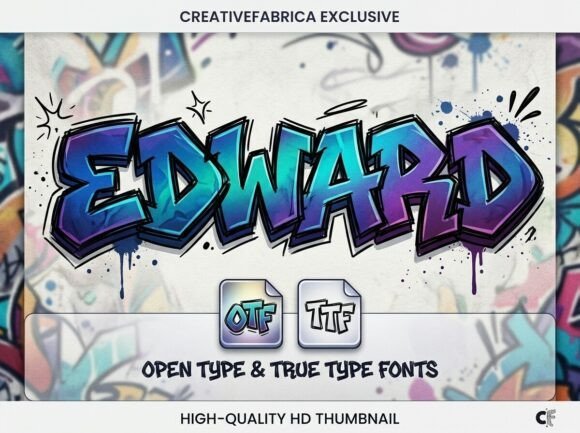
Inject an unapologetic wave of raw energy into your next digital canvas with the Edward Graffiti Font, a bold, hand-drawn typeface that masterfully captures the essence of modern street art typography. Designed with a gritty, blocky aesthetic and prominent, thick outlines, this striking lettering style instantly evokes the authentic spirit of underground culture and inner-city murals. If you are looking to emulate the unmistakable look of spray paint tags and urban lettering, Edward delivers a heavy-hitting visual impact that refuses to be ignored.
Because of its loud, rebellious personality, this display graffiti font is an absolute standout choice for highly expressive projects like streetwear brand logos, underground hip-hop event posters, and aggressive gaming graphics. By integrating the Edward typeface into your design arsenal, you are equipping your workflow with an authentically modern aesthetic that bridges the gap between classic wall tagging and polished graphic design. Whether you are producing eye-catching apparel or designing edgy digital content, this font guarantees your project will maintain a fierce, street-ready attitude.
2. Rhinos Pero Graffiti Font
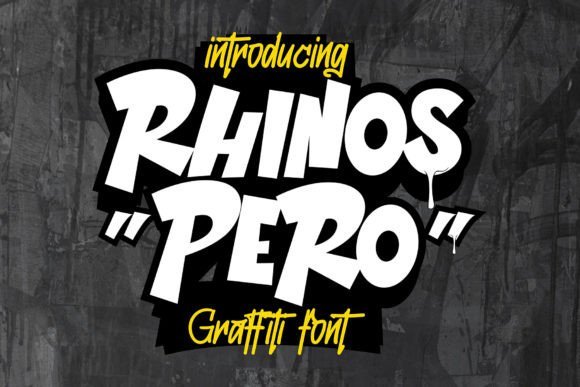
Stepping away from the typically aggressive and highly structured styles of traditional street art typography, the Rhinos Pero Graffiti Font introduces a refreshingly quirky and delightfully playful aesthetic to the urban design space. This highly unconventional typeface embodies eccentric and unique letterforms that boldly deviate from standard typographic norms, injecting a sense of whimsy into the classic tagging aesthetic. By featuring irregular shapes and bouncy, imaginative characters, Rhinos Pero proves that a graffiti font can deliver a distinct, offbeat appearance while still paying homage to authentic street-level lettering and modern mural styles.
With its remarkably fun and approachable attributes, the Rhinos Pero Graffiti Font is the perfect typographic solution for creative projects aiming to convey a lighthearted yet distinctly urban visual impression. Designers will find this whimsical typeface incredibly versatile for youth-oriented streetwear brands, eccentric festival flyers, playful product packaging, and engaging social media campaigns. By leveraging this graffiti-inspired typographic style, you can effortlessly blend the raw, organic feel of street art with a fun, accessible vibe that captivates a broad modern audience.
3. Grime Slime Graffiti Font
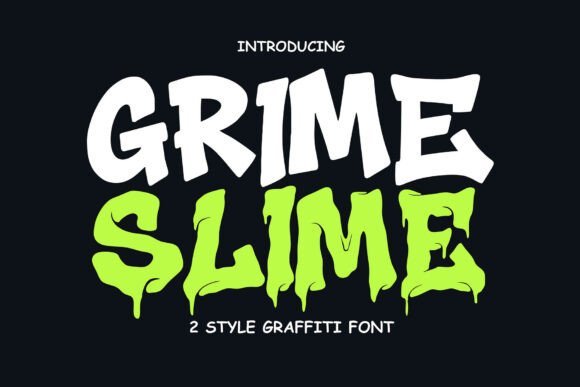
Unleash the untamed spirit of the urban jungle with the Grime Slime Graffiti Font, a rugged, melting typeface created by Cikareotype that expertly channels the gritty, macabre energy of underground street culture. Inspired directly by the visceral reality of city alleyways, this unique display typeface features a dripping, oozing aesthetic where every single character mimics toxic slime trails and wet spray paint. It flaunts its intentional letterform deformities with absolute pride, utilizing swaying edges and organic morphing to create a wild, yet surprisingly readable spectacle. For designers seeking a drip effect graffiti font that packs a fierce, unapologetic punch, Grime Slime commands immediate attention and delivers an intense visual rhythm.
This audaciously brash typeface is highly ideal for urban-centric branding, coming alive on edgy streetwear collections, skate and BMX deck graphics, heavy metal album covers, and post-apocalyptic event posters. Beyond traditional print, the Grime Slime Graffiti Font is a powerhouse for digital media, easily elevating YouTube thumbnails, Twitch overlays, and immersive video game UI designs. Featuring a comprehensive set of uppercase characters, numerals, and punctuation, it offers massive design flexibility without losing its radiating aura of raw, alleyway creativity. Whether splashed across a dark, dystopian canvas or used with a vibrant, toxic color palette, this font amplifies your creative voice and solidifies your project’s trend-setting street appeal.
4. Spacie Opera Graffiti Font
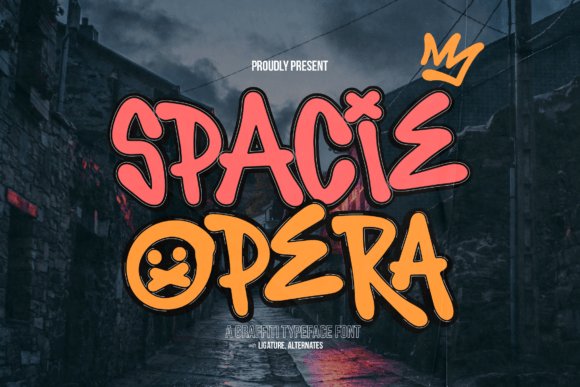
Spacie Opera injects a lively and playful spirit into the world of urban typography, making it an exceptional graffiti font for creative designers. Instead of the gritty, aggressive lines often found in traditional tagging, this typeface embraces a more upbeat, modern aesthetic. Its bold, thick letters are infused with dynamic internal shapes and geometric quirks, reminiscent of vibrant street art murals that brighten up city walls. The energetic curves and distinct character styling make it instantly recognizable, perfectly capturing the vibrant essence of hip-hop culture and contemporary street style.
When it comes to practical application, this graffiti font is an absolute powerhouse for projects demanding a cool, youthful touch. Spacie Opera shines brilliantly on gig posters, streetwear apparel designs, and edgy social media campaigns. Whether you are crafting a striking music festival flyer or designing custom merchandise that needs to pop, its unique blend of approachability and underground edge ensures your message is delivered loud and clear. By incorporating this versatile street style font into your toolkit, you elevate your designs with a fresh, artistic flair that truly stands out.
5. Slime Drip Graffiti Font
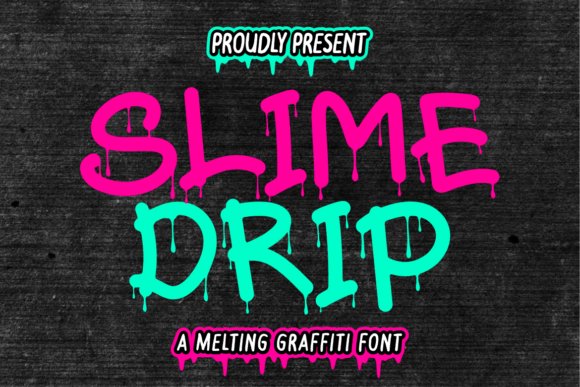
Introducing Slime Drip, a dynamic monoline graffiti font that authentically captures the raw attitude and fluid motion of fresh spray paint running down an urban wall. This typeface masterfully replicates the spontaneous flow and melting strokes characteristic of underground tagging and edgy street art. By utilizing a bold monoline outline, the designers have ensured that this graffiti font retains high readability while still delivering maximum visual impact. It perfectly embodies the spirit of youthful rebellion, offering a striking, gooey aesthetic that brings the energy of the city streets straight to your digital canvas.
The versatility of Slime Drip makes it a go-to choice for a wide array of bold, urban-themed branding projects. From eye-catching streetwear apparel and skateboard deck graphics to vibrant festival posters and striking magazine covers, this graffiti font demands attention. Equipped with comprehensive multilingual support, numerals, and a full character set, it provides designers with the ultimate flexibility to push creative boundaries. Whether you are building a memorable identity for an alternative lifestyle brand or designing edgy promotional stickers, Slime Drip delivers that authentic street aesthetic essential for modern, trend-setting artwork.
6. Zieder Danger Basic Graffiti Font
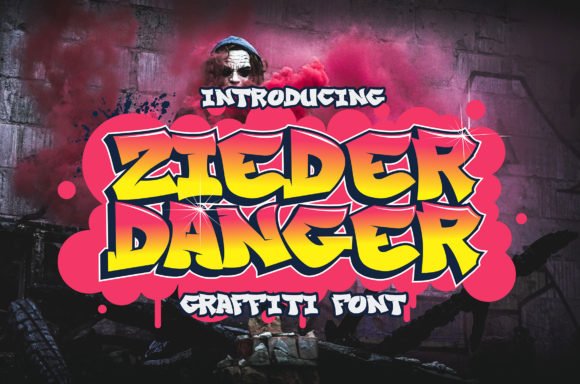
Zieder Danger Basic Graffiti is a quintessential modern graffiti font engineered to bring the authentic, raw edge of aerosol art into your typography toolkit. Designed specifically to streamline the creation of complex street-style layouts, this typeface mimics the swift, confident strokes of a seasoned graffiti artist. Whether you are aiming for a classic marker pen style or a bold spray-painted look, this graffiti font provides a rock-solid foundation. Its carefully balanced letterforms ensure that you can easily generate professional-looking urban typography without needing to individually illustrate every tag or throw-up by hand.
Functionality meets street credibility with Zieder Danger, making it an incredibly adaptable asset for highly visual commercial projects. This graffiti font excels across a multitude of mediums, proving highly effective for rugged packaging designs, bold logo marks, and unapologetic streetwear t-shirt graphics. It also commands attention on event posters, indie brand labels, and edgy community bulletins that require an authentic hip-hop lettering vibe. By anchoring your designs with this commanding typeface, you instantly infuse your work with a rebellious, high-energy atmosphere that resonates deeply with urban culture enthusiasts.
7. Boy Graffiti 2 Graffiti Font
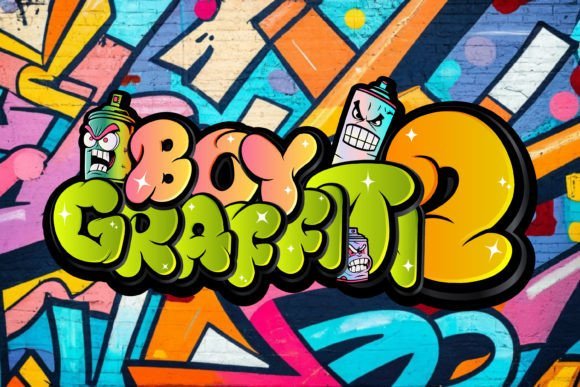
Dive headfirst into the raw, unapologetic world of street art with the Boy Graffiti 2 Graffiti Font. This typeface captures the authentic, rebellious spirit of urban environments, offering bold lettering and intricate design details that immediately draw the eye. As a quintessential graffiti font, it features the stylized, freehand aesthetic of spray paint tags and mural typography, making it an indispensable tool for designers seeking to inject genuine street credibility into their work. The jagged edges and dynamic curves perfectly mimic the hasty yet deliberate strokes of a seasoned street artist.
Whether you are conceptualizing a massive street art project or simply looking to give your digital graphic designs a graffiti-inspired edge, this urban typeface makes an undeniable statement. It thrives in high-impact scenarios such as streetwear apparel, underground music festival posters, and edgy social media campaigns. By pairing this dynamic display font with minimalist sans-serifs, you can create a striking visual contrast that ensures your core message leaps off the canvas. Boy Graffiti 2 is not just a font; it is a vital ingredient for any creative project demanding an authentic metropolitan vibe.
8. Broken Graffiti Font
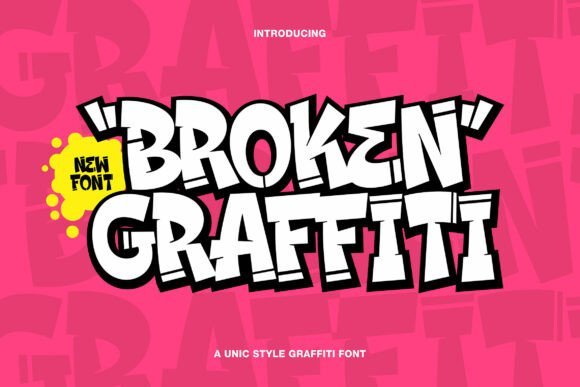
The Broken Graffiti Font is a chunky, caps-only display typeface that practically shouts from the rooftops with its unique blend of comic-book swagger and undeniable street-art attitude. Built from incredibly wide, muscular strokes, this standout graffiti font features deliberate angular breaks and split joints that evoke the gritty, tactile texture of a cracked city wall. Despite its heavy weight, the typeface maintains excellent legibility at large sizes thanks to its carefully squashed bowls and open counters. Furthermore, the playful bounce of its upward-kicking crossbars injects a sense of relentless motion and kinetic energy into every single word you type.
Designed with versatility in mind, this urban display typeface comes equipped with a bold outer stroke that practically begs for layered color treatments, sticker-peel effects, and heavy outlining. Its compact width and tight default spacing make it the ultimate choice for dense, punchy headlines that need to read loud and fast. The overall voice of Broken Graffiti is brash yet surprisingly friendly and mischievous, making it a stellar choice for hip-hop event posters, streetwear branding, gaming titles, and vibrant snack packaging. Pair this dynamic graffiti font with a clean grotesk typeface for your body copy, lean into heavy drop shadows, and watch as your designs explode with authentic urban energy.
9. Melting Graffiti Font
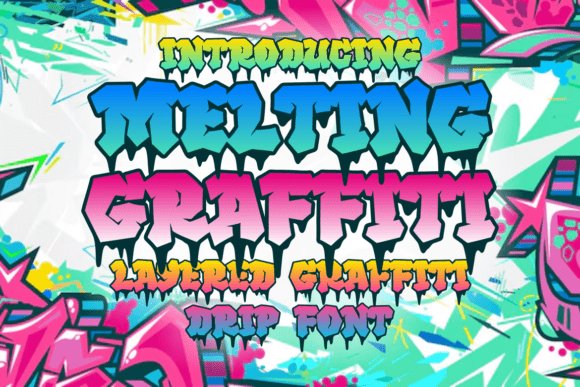
Bring an explosive surge of urban energy to your next creative endeavor with the Melting Graffiti Font, a vibrant, layered drip typeface that perfectly encapsulates the raw essence of city art culture. This highly expressive graffiti font features bold, edgy letterforms defined by sharp angular cuts, thick strokes, and an eye-catching melting drip effect that mimics fresh, wet spray paint sliding down a brick wall. The brilliant fusion of a classic underground graffiti aesthetic with a highly stylized liquid effect ensures that every character commands immediate attention. It is the ultimate typographic choice for designers who want to bridge the gap between rebellious street art and polished, contemporary graphic design.
The true power of this drip-style typeface lies in its exceptional layered capabilities, allowing you to easily mix and match vibrant neon colors and deep shadows for a multidimensional, standout result. The Melting Graffiti font is particularly effective for high-impact commercial projects, including streetwear apparel branding, custom skateboard deck graphics, underground club posters, and striking album covers. Whether deployed in digital formats or printed media, its distinctive dripping street style guarantees that your message will resonate with a youthful, trend-conscious audience. Inject a powerful, metropolitan personality into your visual branding with this masterful graffiti font.
10. Wofline Graffiti Font
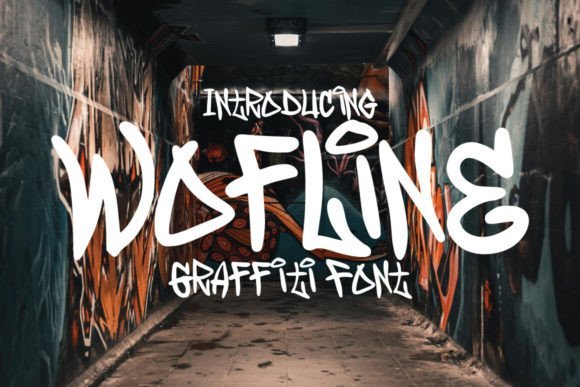
The Wofline Graffiti Font captures the raw energy and rebellious spirit of authentic street art calligraphy. Deeply inspired by classic urban tagging and expressive mural lettering, this display typeface brings an unmistakable hip-hop aesthetic to your digital canvas. Whether you are designing edgy movie posters, gritty documentary titles, or striking logo designs, this versatile graffiti font ensures your creative ideas will effortlessly stand out from the crowd. Its bold strokes mimic the fluid motion of spray paint, making it a powerful choice for projects that demand a gritty, authentic street vibe.
Beyond its striking visual appeal, Wofline Graffiti is a typographic powerhouse equipped with over 130 meticulously crafted glyphs. Designers will appreciate the extensive OpenType features, which include dynamic swashes, stylistic sets, and custom ligatures that allow for truly bespoke street style lettering. Because it is fully PUA encoded, every single alternate character is easily accessible across major software like Adobe Illustrator, Photoshop, and even Microsoft Word. This ensures that whether you are a seasoned art director or an enthusiastic crafter, you can effortlessly achieve a custom hand-painted look in your urban typography projects.
11. Back Wild Graffiti Font
Inject a sense of playful rebellion into your next project with the Back Wild Graffiti Font. Unlike traditional, aggressive street typography, this unique typeface features a bold and chubby letterform that softens the raw edge of urban tagging with a friendly, rounded aesthetic. It perfectly captures the popular bubble-letter style often seen in vibrant street murals and underground pop culture art. The thick, expansive strokes ensure maximum legibility and visual impact, making it an ideal choice for eye-catching merchandise, vibrant social media graphics, and energetic event flyers.
What truly sets Back Wild apart in the realm of street art typography is its inclusion of decorative swash characters. These stylish flourishes allow designers to add custom, swooping tails and accents that mimic the quick flick of a spray paint can. This level of customization transforms a standard headline into a dynamic piece of urban lettering. If you are looking to infuse your branding with a youthful, hip-hop inspired energy while maintaining an approachable and fun vibe, this chubby graffiti font delivers an unbeatable blend of streetwise edge and typographic playfulness.
12. Living City Graffiti Font
For designers seeking a more refined take on urban aesthetics, the Living City Graffiti Font offers a brilliant modern and minimalist approach to street typography. This handmade display typeface effortlessly balances the raw, kinetic energy of underground tagging with clean, contemporary design principles. By stripping away the chaotic elements often associated with traditional street art lettering, Living City provides a highly readable yet undeniably urban feel. It is a fantastic asset for contemporary streetwear branding, edgy editorial layouts, and impactful movie titles where you want a hint of street culture without overwhelming the viewer.
The versatility of this minimalist graffiti font makes it a staple for any modern designer’s toolkit. Its carefully crafted, handwritten strokes bring an organic, human touch to digital canvases, seamlessly elevating promotional flyers, high-impact posters, and engaging social media campaigns. Because it retains the authentic texture of a marker or spray paint while maintaining a streamlined silhouette, Living City bridges the gap between raw street art and high-end commercial design. It is the perfect choice for lifestyle brands and creative agencies looking to inject a sophisticated yet gritty urban flavor into their visual identity.
13. Midnightsurfing Regular Graffiti Font
Unleash your creative potential with the Midnightsurfing Regular Graffiti Font, a remarkably vibrant and energetic typeface that flawlessly captures the raw, unfiltered spirit of modern urban lettering. Featuring dynamic brush strokes and an authentic, hand-painted feel, this expressive display font brings a spontaneous and artistic vibe directly to your typography. Whether you are aiming for a classic mural style or a contemporary tag look, its unique letterforms ensure your projects stand out with a bold and untamed character.
Beyond just looking edgy, this versatile spray paint font is the ultimate typographical tool for streetwear brands, skateboarding graphics, and high-energy youth marketing campaigns. Event posters and underground music covers will instantly benefit from its unmistakable street art attitude. If you are a designer seeking to inject a rebellious, eye-catching aesthetic into your digital canvases or print materials, Midnightsurfing provides the raw, handstyle authenticity required to make your headlines completely unforgettable.
14. Boorden Street Graffiti Font
If you need to inject a massive dose of urban authenticity into your work, the Boorden Street Graffiti Font delivers bold energy and a quintessential street-style attitude. Crafted with raw, dynamic strokes, this impactful typeface masterfully captures the very essence of underground urban art. The handcrafted graffiti elements give Boorden Street a gritty, textured feel that perfectly mimics the look of real spray paint and marker tags found on city walls. It is a brilliant choice for designers who want their typography to exude a raw, unapologetic, and rebellious flair.
Because of its thick, daring strokes, this graffiti font guarantees that every single word commands immediate attention, making it an absolute powerhouse for high-impact visual projects. It shines exceptionally well on hip-hop album covers, bold festival posters, and edgy streetwear apparel branding. Whether you are developing assets for a digital campaign or producing large-scale print graphics, Boorden Street provides a commanding street art presence that instantly elevates your creative identity with its vibrant, untamed energy.
15. Rolarten Graffiti Font
Step into the realm of fearless self-expression with the Rolarten Graffiti Font, a brilliantly bold and gritty typeface that brings the raw energy of street art straight into your design workspace. Inspired by authentic spray paint textures and the fast-paced motion of urban tagging, Rolarten delivers a highly dynamic handstyle. This exceptional street art typography is designed to mimic the authentic drips, sweeps, and overlaps of traditional mural lettering, providing your digital projects with a genuinely loud, edgy, and unapologetic voice.
Perfectly suited for commanding headlines and striking creative identities, this urban lettering style is an essential asset for anyone designing within the realms of extreme sports, underground music events, and modern streetwear brands. The Rolarten Graffiti Font ensures that your messaging never fades into the background. By utilizing its aggressive yet incredibly artistic character set, you can effortlessly transform ordinary graphic elements into striking pieces of urban culture, guaranteeing your visual branding leaves a lasting, rebellious impression on your audience.
16. Brick Edgie Graffiti Font
Brick Edgie is a bold and energetic graffiti font that flawlessly embodies the raw, unfiltered spirit of underground urban art. Characterized by its sharp edges and strikingly thick letterforms, this typeface captures the authentic texture and attitude of traditional spray paint style lettering. Whether you are designing a gritty hip hop album cover or looking to inject some street-inspired rebellion into your branding, this urban typography choice instantly transforms your canvas into an eye-catching concrete wall.
Beyond its striking visual impact, Brick Edgie offers remarkable versatility for designers aiming to achieve a genuine street art aesthetic. It is highly recommended for creating high-impact posters, dynamic streetwear apparel designs, and impactful mural font concepts that demand attention. By integrating this edgy graffiti font into your creative arsenal, you ensure that your projects resonate with the dynamic, fast-paced energy of modern city life, making a powerful statement that refuses to be ignored.
17. Vabioxe Graffiti Font
Vabioxe stands out as an amazing monoline graffiti font meticulously designed to streamline the creation of authentic street-style graphics. Unlike heavier bubble or block letters, this unique typeface channels the fluid, quick-stroke motion of a marker style tag font, capturing the spontaneous essence of street culture. Its smooth, continuous lines make crafting legible yet distinctively urban graffiti lettering easier than ever, providing a sleek alternative to traditionally chaotic spray-painted looks while maintaining that coveted rebellious edge.
Because of its clean monoline execution, Vabioxe is incredibly adaptable across a vast array of physical and digital media. It is the perfect choice for eye-catching product packaging, contemporary streetwear shirt designs, and striking logo marks that require a polished yet gritty urban design aesthetic. Whether you are working on independent zines, event posters, or modern label typography, incorporating this standout graffiti font will elevate your creations with a distinctly authentic, hand-tagged vibe.
18. Boy Graffiti Font
Dive into the edgy and vibrant world of urban lettering with the Boy Graffiti Font, a powerhouse typeface designed to bring the underground aesthetic straight to your digital canvas. This bold, expressive typography perfectly captures the raw energy of a spray can effect, allowing designers to easily emulate intricate street murals and classic hip-hop typography. If you are searching for a cool, authentic way to inject unapologetic urban style into your artwork, this typeface delivers the thick, bold lettering necessary to make your message leap off the page.
Ideal for a wide spectrum of creative endeavors, this versatile graffiti font ensures that every graphic design project makes a massive, bold statement. It is particularly effective for street art-inspired poster campaigns, dynamic skate brand merchandise, and eye-catching social media graphics that require a rugged, vandal style touch. By leveraging the authentic characteristics of this graffiti font, you can effortlessly transform ordinary text into a striking piece of urban design that resonates with raw, creative rebellion.
19. Graffiti Giggle Graffiti Font
Graffiti Giggle is a highly energetic, playful urban typeface that perfectly captures the youthful exuberance of modern street art. If you are searching for a standout graffiti font that marries classic bubble-style lettering with cartoonish flair, this display typeface is an exceptional choice. Complete with dripping spray-paint aesthetics and comic-inspired accents, it delivers an unmistakable urban edge while remaining remarkably approachable and fun.
Ideal for digital creators and graphic designers alike, this versatile street-style font shines in applications ranging from vibrant streetwear branding and hip-hop flyers to engaging YouTube and Twitch graphics. Beyond the standard uppercase and lowercase characters, it offers unique doodle-style expressions and bonus colorful PNG elements to elevate your compositions. Whether you are designing captivating game titles or striking merchandise, this urban graffiti font injects bold personality and dynamic rhythm into any creative project.
20. Quick Brisky Graffiti Font
Quick Brisky serves as a phenomenal modern bubble graffiti font that seamlessly bridges the gap between nostalgic Y2K aesthetics and contemporary street urban typography. Its bold, balloon-like letterforms bring an undeniable sense of cheerfulness and expressive energy to the digital canvas. As a highly sought-after style within the graffiti font category, its chunky, rounded shapes replicate the vibrant, impromptu nature of street murals and spray-can artistry. This gives designers a powerful tool to inject a youthful, optimistic vibe into their visual identity without sacrificing legibility.
The versatility of this playful street typeface makes it a go-to asset for a wide array of creative endeavors. From high-impact music posters and energetic urban branding to quirky café menus and custom sticker designs, Quick Brisky guarantees your text will pop off the page or screen. For artists and brands looking to capture the authentic, raw energy of hip-hop culture with a softer, approachable twist, this premium graffiti font delivers standout performance, ensuring your logos and packaging designs resonate with modern audiences.
21. Rughola Graffiti Font
Immersed in the golden era of street culture, Rughola is an exceptional graffiti font directly inspired by gritty, 90s hip-hop typography. Unlike many overly complex street art fonts, it balances authentic urban aesthetics with clear, unique character structures that allow designers to create a natural, flowing rhythm. When you need a reliable graffiti font that captures the essence of underground tagging and traditional spray-paint murals, Rughola provides that rugged, raw attitude while maintaining excellent readability across diverse mediums.
Whether you are developing a disruptive new brand identity or designing eye-catching apparel, this vintage-inspired street font offers immense creative flexibility. It acts as the perfect typographic foundation for logotypes, edgy streetwear t-shirts, magazine layouts, and striking poster designs. By integrating this dynamic hip-hop typeface into your digital graphics or social media content, you instantly elevate your visuals with the rebellious, authentic spirit of 90s street art. Rughola stands as an essential tool for any designer looking to make a bold statement with a classic urban graffiti font.
22. Great Things Graffiti Font
Experience the magnetic charm of the Great Things Graffiti Font, a captivating display typeface that instantly breathes life into your creative canvas. Characterized by its vibrant, bouncy letterforms and authentic street-style energy, this graffiti font is meticulously crafted to bring a bright, cheerful, yet edgy touch to your visual projects. Whether you are aiming to capture the raw essence of urban art or simply want a typeface that pops with personality, Great Things delivers. It perfectly bridges the gap between playful comic-book aesthetics and authentic tag-style lettering, making it a highly versatile choice for modern designers.
Beyond its eye-catching exterior, this premium graffiti font is built for professional-grade performance and extensive application. It shines brilliantly across a myriad of branding projects, from striking logo designs and watermarks to dynamic promotional posters and product packaging. Offering two distinct styles—regular and an attention-grabbing extruded version—it allows you to easily create authentic drop-shadow effects synonymous with street murals. Furthermore, the Great Things Graffiti Font is fully PUA-certified, granting you seamless access to an expansive library of stunning glyphs and fluid ligatures to give your typography a truly customized, hand-drawn street art dimension.
23. Street Fruit Graffiti Font
Inject a dose of raw, unapologetic urban energy into your next project with the Street Fruit Graffiti Font. This bold and modern display typeface is engineered to make an immediate, unforgettable statement, drawing heavy inspiration from contemporary street culture and underground mural art. Its thick, confident strokes mimic the heavy flow of a spray can, making it an ideal graffiti font for designers looking to capture that authentic hip-hop or streetwear aesthetic. When your design requires an edgy, rebellious attitude without sacrificing legibility, Street Fruit stands out as a powerful typographic weapon.
The true strength of the Street Fruit Graffiti Font lies in its remarkable versatility across high-impact visual mediums. From designing gritty apparel graphics and skateboard decks to crafting festival posters, album covers, and bold social media campaigns, this typeface ensures your message commands attention. By leveraging the urban edge of this graffiti font, you can instantly elevate your branding and merchandise, giving them a trendy, street-smart vibe. It is the perfect tool for creatives aiming to fuse modern typographic clarity with the wild, untamed spirit of city street art.
24. Graffix Impact Graffiti Font
Prepare to push the boundaries of your digital canvas with the Graffix Impact Graffiti Font, an extraordinary 3D layered typeface that redefines urban typography. What sets this remarkable graffiti font apart is its ingenious structural design, which incorporates deliberate breaks and interruptions within each character. This stylistic choice not only mimics the textured, overlapping layers found in authentic street murals but also creates a dramatic sense of depth and three-dimensionality. By utilizing multiple layers, this typeface allows designers to effortlessly generate a popping, 3D street art effect that leaps right off the page or screen.
Whether you are rendering underground event posters, edgy apparel designs, or high-octane gaming graphics, the Graffix Impact Graffiti Font delivers a bold and dynamic visual punch. The character breaks introduce a beautifully distressed, rebellious element that perfectly captures the raw essence of tagging and graffiti art. Utilizing this multi-layered graffiti font enables you to weave visually striking text styles into your professional branding, giving your projects an unparalleled urban authenticity. It is the ultimate choice for any design endeavor that demands a highly captivating, dimensional, and unapologetically bold typographic centerpiece.
25. Trigger Graffiti Font
Trigger Graffiti is an electrifying street-style graffiti font that explodes with urban energy and youthful rebellion. Featuring thick, uneven letterforms and hard-angled cuts, this typeface perfectly captures the bold spontaneity of real wall tags and authentic mural lettering. Its vibrant gradient fills, paired with thick black outlines and crisp white borders, create a high-contrast aesthetic that commands attention against any backdrop. Whether layered over raw brick textures or integrated into digital canvases, this urban typography tool is built to grab the viewer’s eye and never let go, radiating the raw attitude of hip-hop culture, skate parks, and underground art scenes.
Designed specifically for creatives who want their visuals to speak loud and proud, this versatile graffiti font offers endless customization potential. It is an ideal choice for streetwear merchandise, bold logo branding, skateboard decks, sticker packs, event posters, and urban marketing campaigns. The comprehensive uppercase set, dynamic punctuation, and quirky symbols all echo the raw, freestyle look of traditional street writing. By bringing an authentic street-art vibe to every character, Trigger Graffiti ensures your personal and commercial projects come through with maximum impact and unmistakable style.
26. Wish Lines Graffiti Font
Elevate your creative designs with Wish Lines, a dynamic graffiti font that masterfully combines bold, fluid lines with an authentic street art vibe. Moving beyond traditional typography, this typeface captures the rhythmic flow and spontaneous energy of modern street tagging. It is meticulously crafted to grab immediate attention, making a striking statement in any digital or print project. Whether you are aiming to inject a dose of underground culture into your portfolio or need a fresh aesthetic for contemporary media, this street-style lettering delivers a modern and unmissable presence that resonates with urban audiences.
The versatility of this premium graffiti font makes it an exceptional asset for a wide range of creative applications. Wish Lines shines particularly well in vibrant cartoon illustrations, edgy apparel branding, and memorable logo designs that require a cool, youthful edge. Its legible yet rebellious structure allows designers to maintain readability while fully embracing an urban aesthetic. Perfect for social media graphics, trendy packaging, and music industry visuals, Wish Lines provides exactly the right balance of modern flair and raw artistic attitude to make your brand stand out from the crowd.
27. Fast Blaze Graffiti Font
Fast Blaze is a fiercely urban graffiti font characterized by its razor-sharp edges, aggressive styling, and unapologetically bold look. Drawing heavy inspiration from the gritty underground scenes of city life, this typeface brings a distinct touch of edginess and raw power to your digital canvas. The unique structural style of Fast Blaze merges the rebellious nature of traditional street tags with intense, high-impact typography. If your goal is to create a strong, commanding visual statement that practically leaps off the page, this high-energy lettering style is exactly the creative tool you need in your design arsenal.
Perfectly suited for projects that demand attitude, this versatile graffiti font is the ultimate choice for death metal album covers, high-octane music posters, and rebellious streetwear apparel designs. Fast Blaze transforms simple apparel graphics and event flyers into authentic pieces of urban art. Beyond the music and fashion industries, designers can leverage its powerful presence for extreme sports branding, skate shop logos, and impactful social media campaigns. By incorporating Fast Blaze into your workflow, you guarantee a result that drips with authentic street culture and undeniable urban grit.
28. Hard Zone Graffiti Font
Introducing Hard Zone, a remarkably dynamic 3D layered graffiti font that instantly injects raw urban energy into your design projects. This street-inspired typeface is packed with meticulously crafted letters and sweeping swashes that perfectly capture the essence of authentic spray paint tagging. What truly sets Hard Zone apart is its clever interplay of shadows within every character, creating an unmistakable illusion of depth and a powerful 3D vibe. Whether you are aiming for a classic mural text aesthetic or a modern hip-hop aesthetic, this graffiti font ensures your typography stands out with undeniable power and momentum.
Perfectly suited for street-inspired ventures and assertive headlines, Hard Zone is the ultimate choice for designers who want their text to be felt rather than just read. The sophisticated layering technique mimics the heavy strokes of a true street art masterpiece, making it highly effective for mesmerizing ad copy, striking apparel graphics, and bold album covers. By blending exceptional versatility with a raw, edgy appeal, this urban typography tool transforms any standard display project into an influential statement that grabs attention and refuses to let go.
29. Awaken Design Graffiti Font
Awaken Design is a bold and energetic comic graffiti font meticulously crafted to bring a playful, yet distinctly urban vibe to your creative toolkit. Its chunky letterforms, featuring exaggerated curves and sharp edges, masterfully mimic the expressive, free-flowing strokes of authentic street art while retaining a highly polished comic-book appeal. This unique blend of styles makes it an exceptional choice for designers looking to infuse their work with fun, creativity, and unwavering confidence. Whether you are developing dynamic posters, vibrant apparel designs, or engaging children content, this street-style typeface captures the magnetic personality of urban tagging and mural lettering.
To maximize its creative potential, Awaken Design comes packed with two highly versatile styles: a clean, solid Regular version and a striking Extrude style designed to deliver immediate dimensional depth. When layered together, these two fonts create a powerful, pop-out effect that perfectly replicates the thick outlines and drop shadows of classic spray-painted tags. This flexibility allows designers to easily alternate between a playful aesthetic and a gritty, edgy design, making it the perfect graffiti font for striking branding, immersive video game typography, and any project that demands a show-stopping visual presence.
30. Thick or Melted Graffiti Font
Thick or Melted is a remarkably cool and bubbly graffiti styled display font that perfectly encapsulates the vibrant, fluid nature of modern street art. Drawing heavy inspiration from the dripping, heavily stylized letters often seen in underground urban murals, this graffiti font brings a distinct sense of motion and organic energy to the digital canvas. The rounded, melted letterforms soften the typical harshness of traditional tagging, offering a highly approachable yet authentically urban aesthetic that instantly draws the eye and holds the viewer attention.
Highly versatile and dripping with personality, Thick or Melted serves as an outstanding typography choice for a wide array of commercial and artistic design projects. It is exceptionally well-suited for high-impact streetwear clothing lines, dynamic sportswear branding, and memorable logo designs that require a touch of urban flair. Whether you are crafting an engaging advertisement campaign or looking to elevate your merchandise, integrating this distinctive street art font into your workflow guarantees a fresh, youthful, and wildly creative finish that resonates with modern audiences.
31. Airborne Street Graffiti Font
Infuse your design with dynamic energy and bold panache using the Airborne Street Graffiti Font, a quintessential bubble-style typeface that perfectly captures the rebellious spirit of urban typography. This standout street art font seamlessly merges the soft, inviting allure of rounded shapes with the relentless, audacious attitude of city walls. By emulating the classic throw-up style favored by taggers, it results in a striking visual vibe that is impossible to ignore. Whether you are aiming to inject a dose of hip-hop culture into your work or simply want a typeface that screams authenticity, Airborne Street delivers an irresistible blend of urban charm and commanding presence.
Ideal for modern streetwear branding, eye-catching gig posters, punchy social media graphics, and edgy album covers, this highly versatile graffiti font ensures each letter adds immense character and high visual impact to your design project. Airborne Street is meticulously designed to encapsulate expressiveness and vitality, translating the raw emotion of spray paint aesthetics into a digital format. Immerse your next creative endeavor in the captivating, street-level aura of Airborne Street, and let your typography make a loud, unabashed statement that resonates with contemporary audiences.
32. Go Graffiti Font
Dive headfirst into the edgy and urban world of street-level typography with the Go Graffiti Font. This exceptional typeface offers everything from bold lettering to intricate, tag-inspired designs, making it an essential asset for designers looking to infuse authentic hip-hop culture into their next creative project. With its gritty textures and fluid strokes, this street art font captures the spontaneous, rebellious energy of authentic subway art and city murals. If you have been searching for a cool graffiti font that adds unmistakable urban style and edginess to your visual identity, this dynamic letterform is guaranteed to elevate your digital canvas.
The Go Graffiti Font is incredibly versatile, shining in applications ranging from gritty street art projects and skateboard deck designs to striking apparel lines and urban lifestyle magazines. By incorporating this authentic spray paint aesthetic into your graphic designs, you give your work a genuine graffiti-inspired look that commands attention. Pair it with vivid color palettes or stark, high-contrast monochrome backgrounds to make a bold statement that truly pops. Whether you are branding an underground music festival or designing striking editorial headers, this typeface provides the raw, unapologetic vibe you need to stand out.
33. Super Graffiti Font
Bring a playful explosion of color and joy to your projects with the Super Graffiti Font, a bubbly and bold cartoon typeface that redefines the fun side of urban typography. Featuring thick, pillowy letterforms and incredibly smooth curves, this street art font pays a loving homage to the classic bubble-style pieces found in old-school graffiti lettering. It captures the vibrant, larger-than-life energy of hip-hop culture while maintaining a remarkably friendly and approachable demeanor. For designers looking to bridge the gap between edgy spray paint aesthetics and lighthearted design, this font is an absolute must-have in your typographical toolkit.
The exceptionally welcoming nature of the Super Graffiti Font makes it the go-to choice for targeting a younger audience without sacrificing urban authenticity. It thrives on children’s party banners, toy store logos, vibrant candy packaging, and engaging YouTube channel graphics. To maximize its super presence, try applying bright rainbow gradients and thick, bold black outlines that mimic a marker or spray can. When paired with playful character illustrations and vivid vector backgrounds, this highly legible graffiti font creates a complete world of fun, guaranteeing a massive visual impact for school event posters and energetic branding campaigns alike.
34. Street Energy Graffiti Font
Bring the roaring pulse of the city straight to your digital canvas with the Street Energy Graffiti Font. This high-octane display typeface masterfully merges the punchy, exaggerated aesthetics of comic book lettering with the raw, unapologetic edge of authentic street art typography. Featuring bold, overlapping characters and sharp, dynamic angles, this typeface perfectly captures a sense of perpetual motion and urban grit. By evoking the rebellious spirit of underground taggers and the expressive strokes of marker-style graffiti, Street Energy offers designers a thrilling way to inject serious vandal-chic attitude into their everyday visual projects.
When it comes to application, this authentic graffiti font is an absolute powerhouse for any design that demands to be seen. It serves as the ultimate typography choice for extreme sports branding, gritty graphic novel titles, underground streetwear logos, and high-impact music event posters. Whether you are creating a vibrant apparel line for a local skate shop or designing a rebellious superhero comic cover, the Street Energy letterforms deliver an unmistakable urban vibe. Its thick, legible strokes ensure your message stays crisp while still retaining the chaotic, freehand energy that makes urban street art so universally captivating.